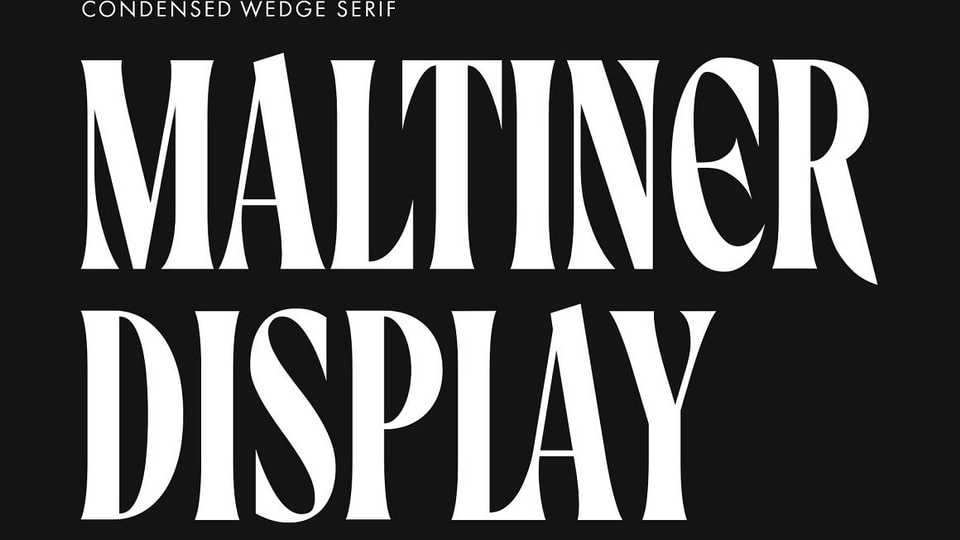
Download Maltiner Display font, a versatile, elegant, and sophisticated condensed serif font inspired by classic typography and newspaper headlines. Designed to excel in display settings, Maltiner Display prioritizes typographic excellence, offering a bold yet refined aesthetic.